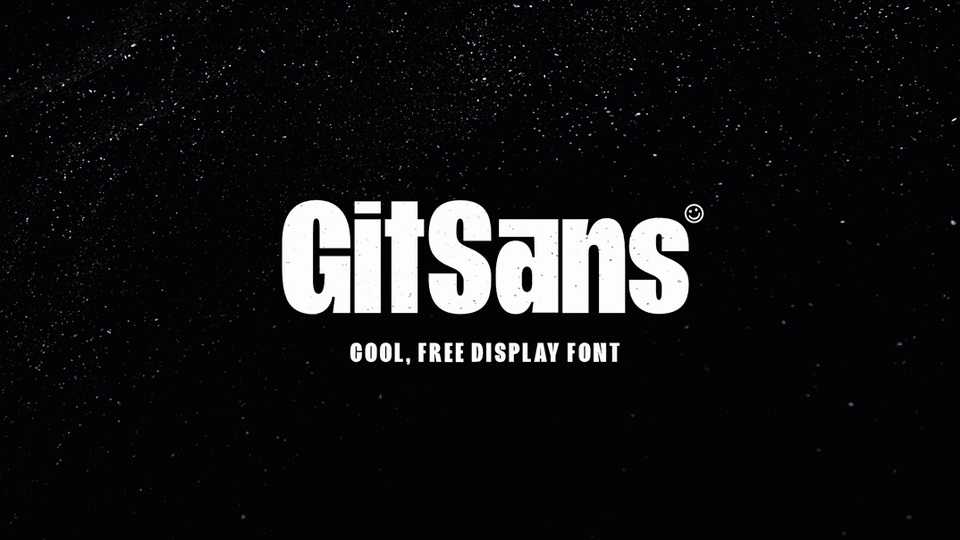
Download GitSans font, a contemporary display typeface designed for robust and high-impact use. GitSans is ideal for headlines, logos and bold attention-grabbing editorial design.